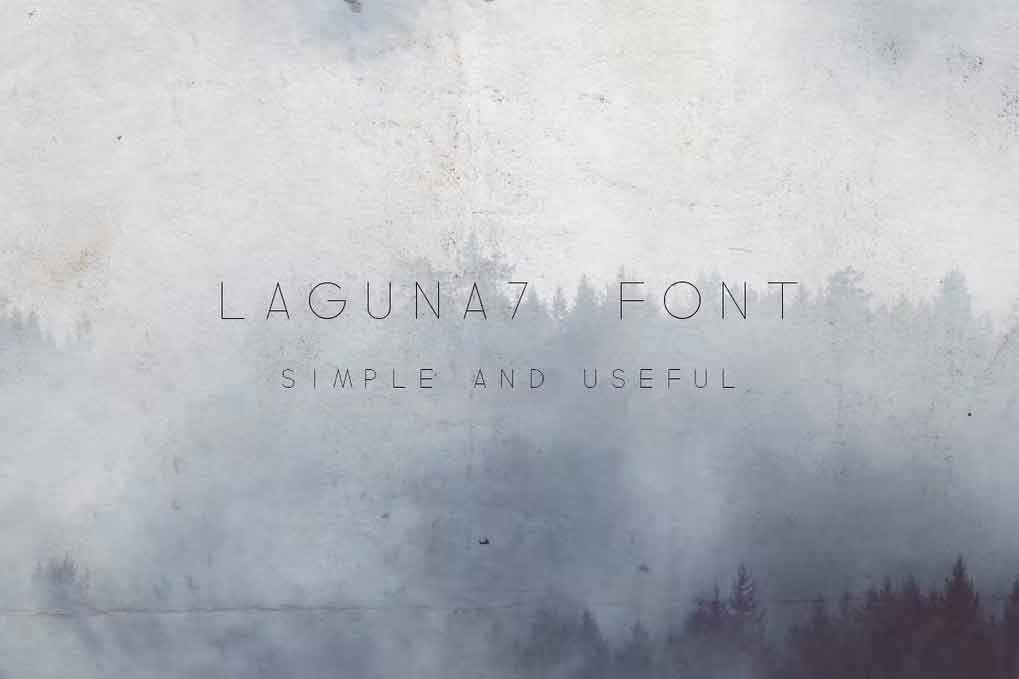
Laguna7 Font
This font is intended for use in branding, advertising, typography posters, etc. It’s simple monospaced font in OpenType format, which includes:
-Letters ABCDEFGHIJKLMNOPQRSTUVWXYZabcdefghijklmnopqrstuvwxyz
-Numbers 1234567890
-Glyphs ~!#$ ^x%x *()[]{}|:;”’<>,.?/+-_=% and others
Laguna7 Font keeps its shape at 14 and 16 pixels, which is where interface text actually lives. Numbers and capitals stay distinguishable in tables.
Presentations are read at a distance; a clean sans with a strong bold is the safest hierarchy you can build in a hurry.
Simple letterforms survive angles, glare and movement, so Laguna7 Font suits door signs, menus boards and exhibition panels.